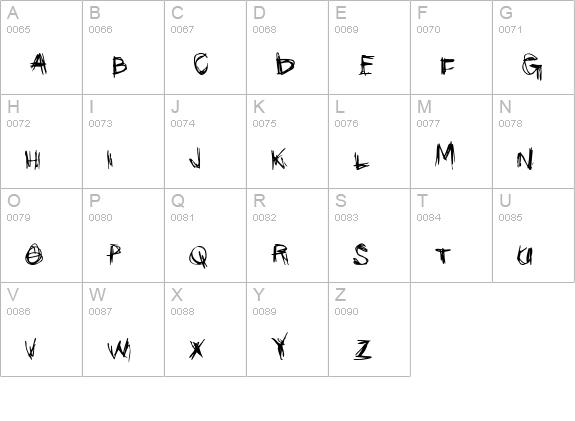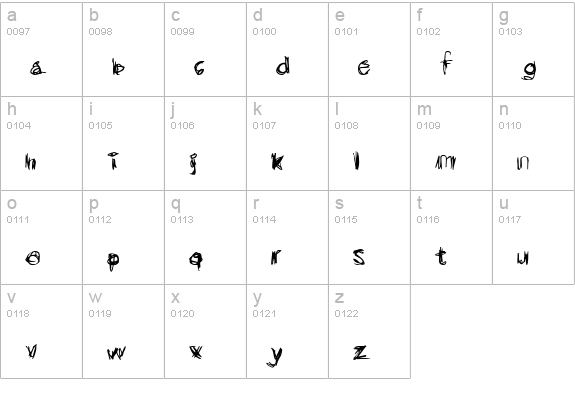
Scribblicious Font Details
Introducing Scribblicious font! This playful and whimsical typeface is here to add a touch of creativity and uniqueness to your designs. With its charming hand-drawn style, Scribblicious is perfect for adding a personal and artistic flair to any project. Whether you're designing a children's book cover, a greeting card, a logo, or even a website, Scribblicious will bring a cheerful and youthful vibe that is sure to capture attention. Its quirky and irregular letterforms give off a sense of spontaneity and free-spiritedness, making it an ideal choice for those looking to break away from traditional typography. But that's not all – what makes Scribblicious even more appealing is the fact that it is freely available to download at FontsMarket.com. Yes, you read that right – this delightful font can be yours without spending a dime! FontsMarket.com is known for its vast collection of high-quality fonts, and Scribblicious is just one of the many gems you can discover there. So, why wait? Embrace your inner artist and let Scribblicious set your designs apart. Download this delightful font for free at FontsMarket.com, and let your creativity take flight!